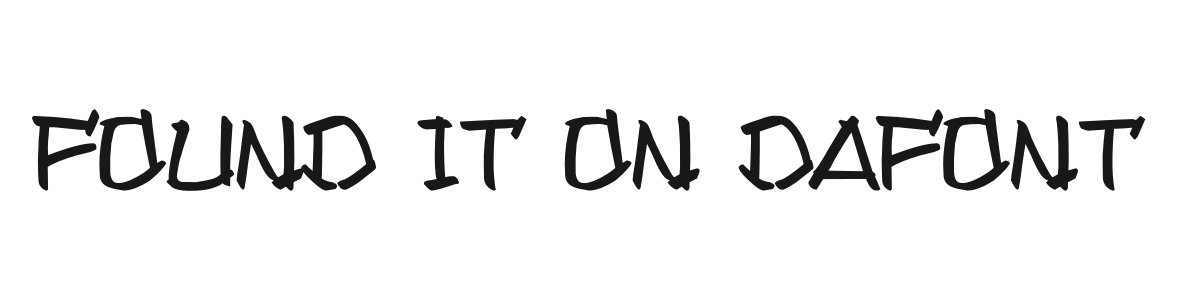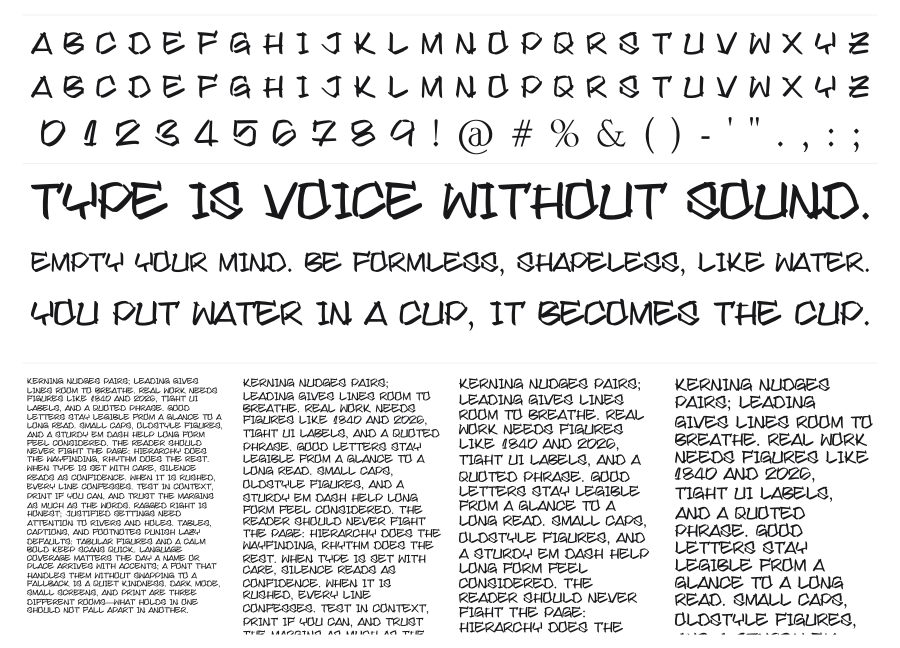
Found it on Dafont
by Elias Durán
Found it on Dafont is a heavy grunge script with rough, splintered strokes and angular construction that channels the raw energy of punk and alternative music. The irregular terminals and bold weight give it a hand-drawn urgency, as if scrawled with a marker under pressure. It was originally adapted for the album artwork of Peruvian rock band Mar de Copas.